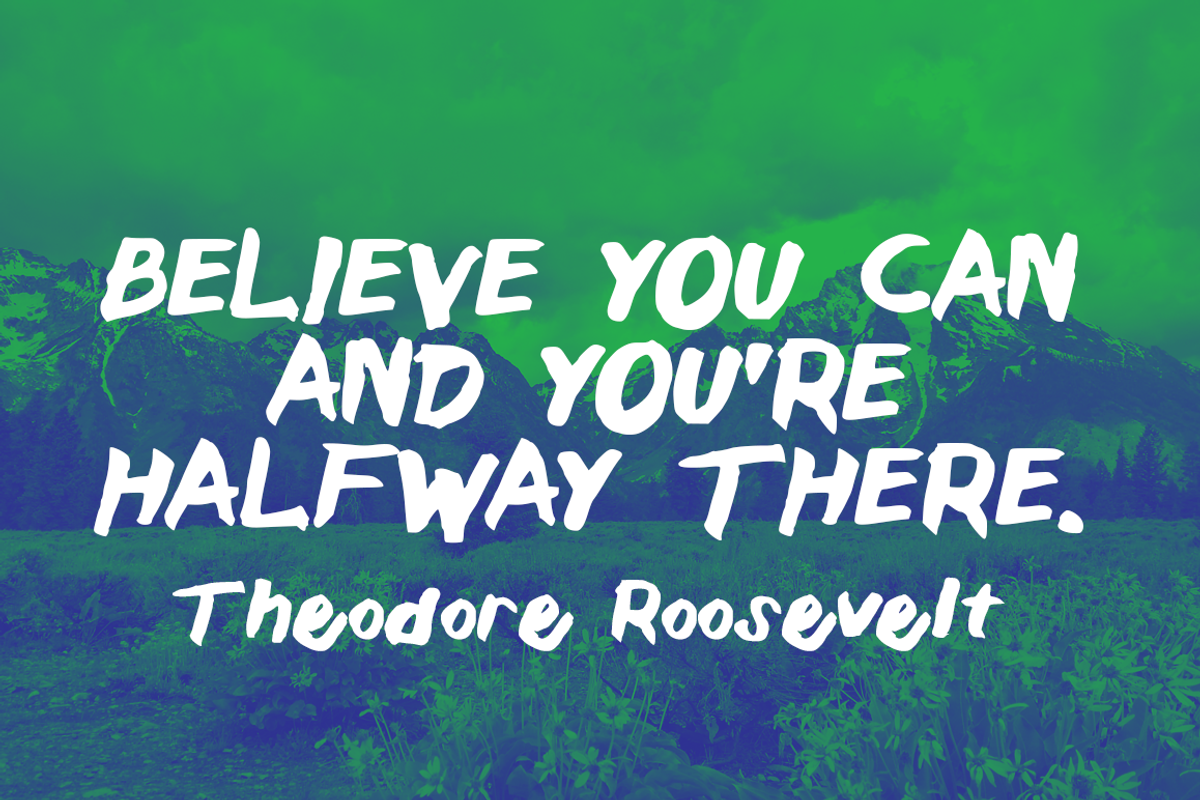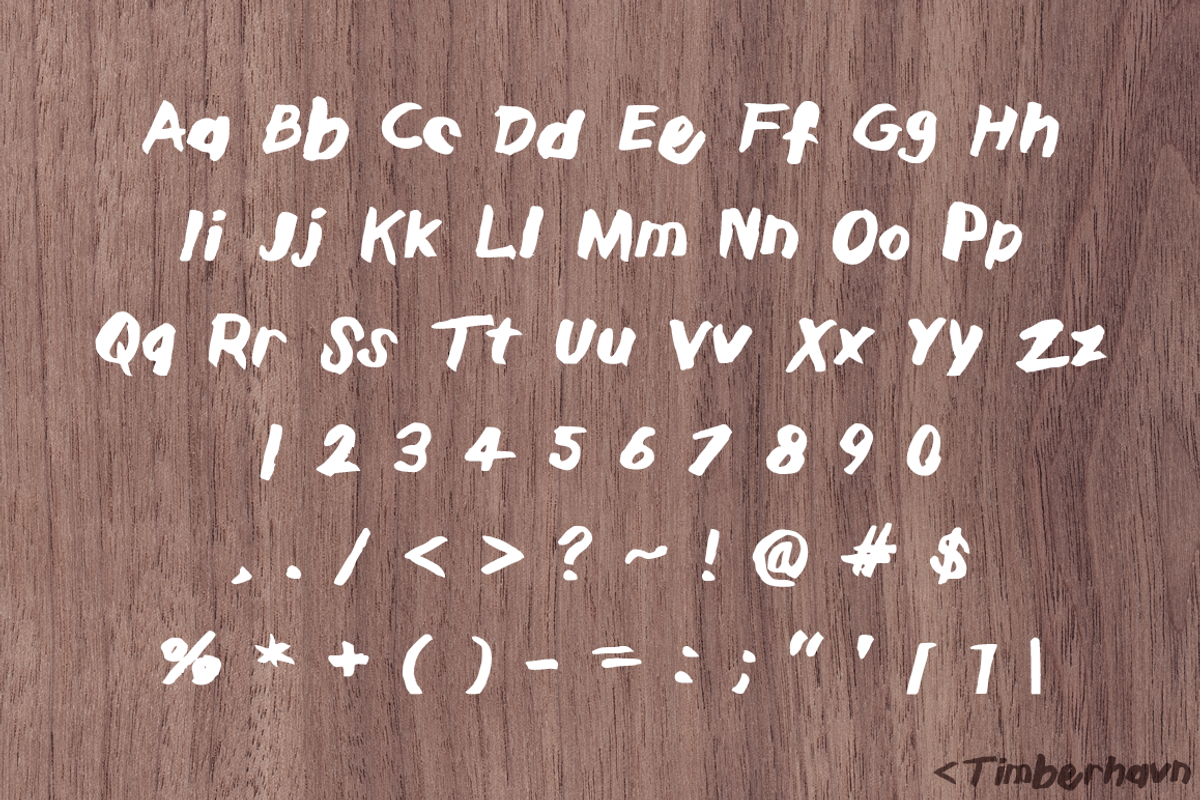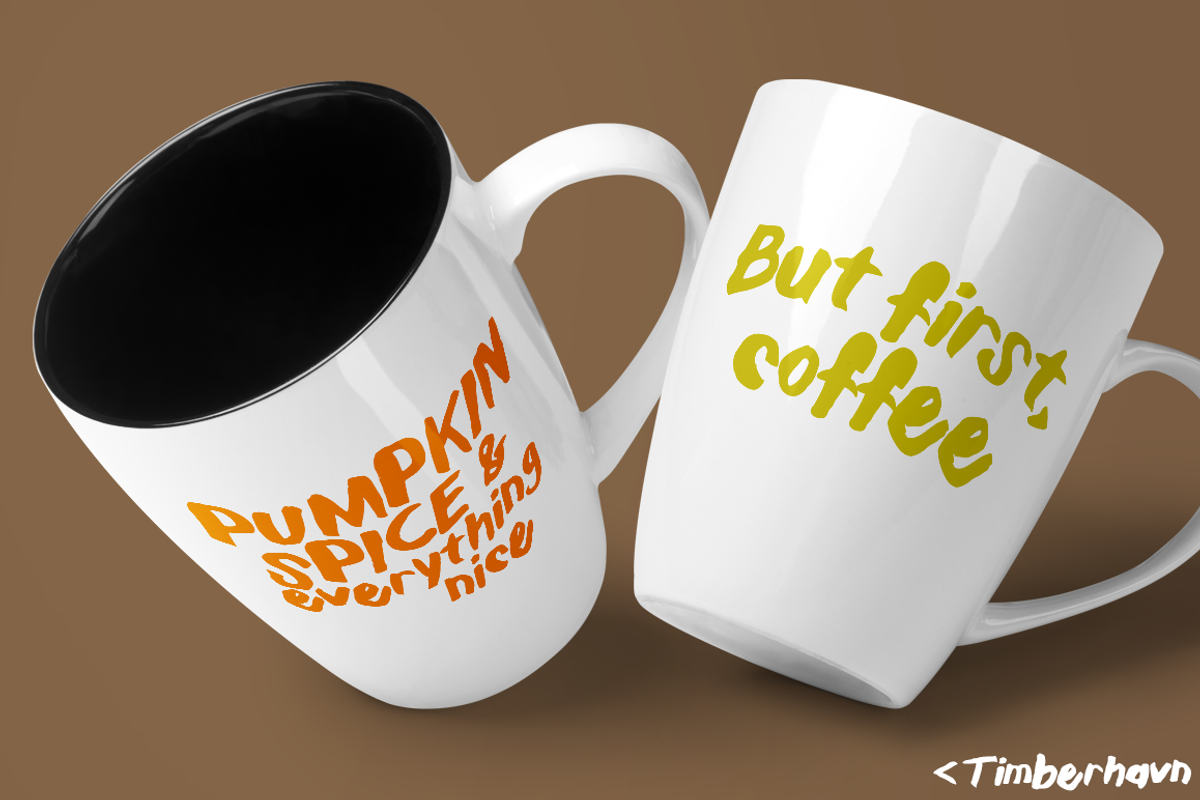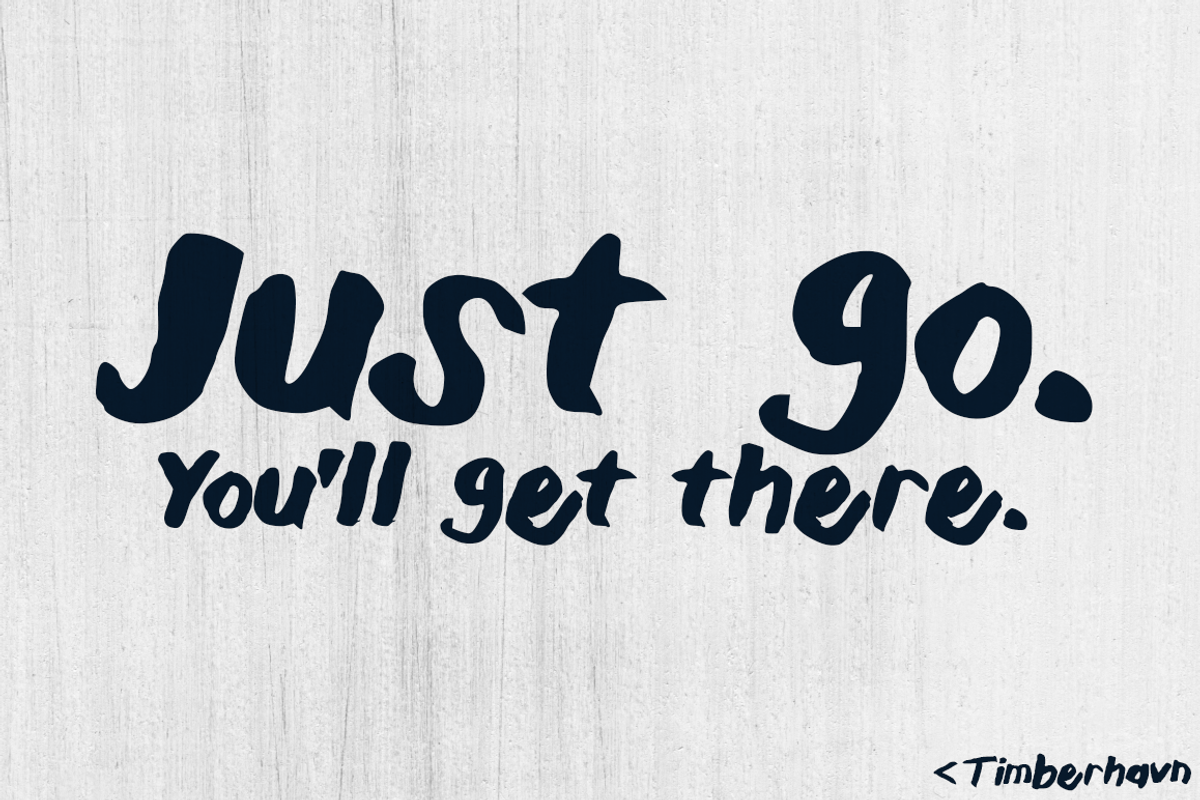
Timberhavn Thick Brush Font
Timberhavn Thick Brush Font by NorthCoastCreative is a font selected for branding, posters, packaging, typography.
Why Timberhavn Thick Brush Font is worth a look
Timberhavn Thick Brush Font by NorthCoastCreative fits naturally into Branding, posters, packaging, typography.